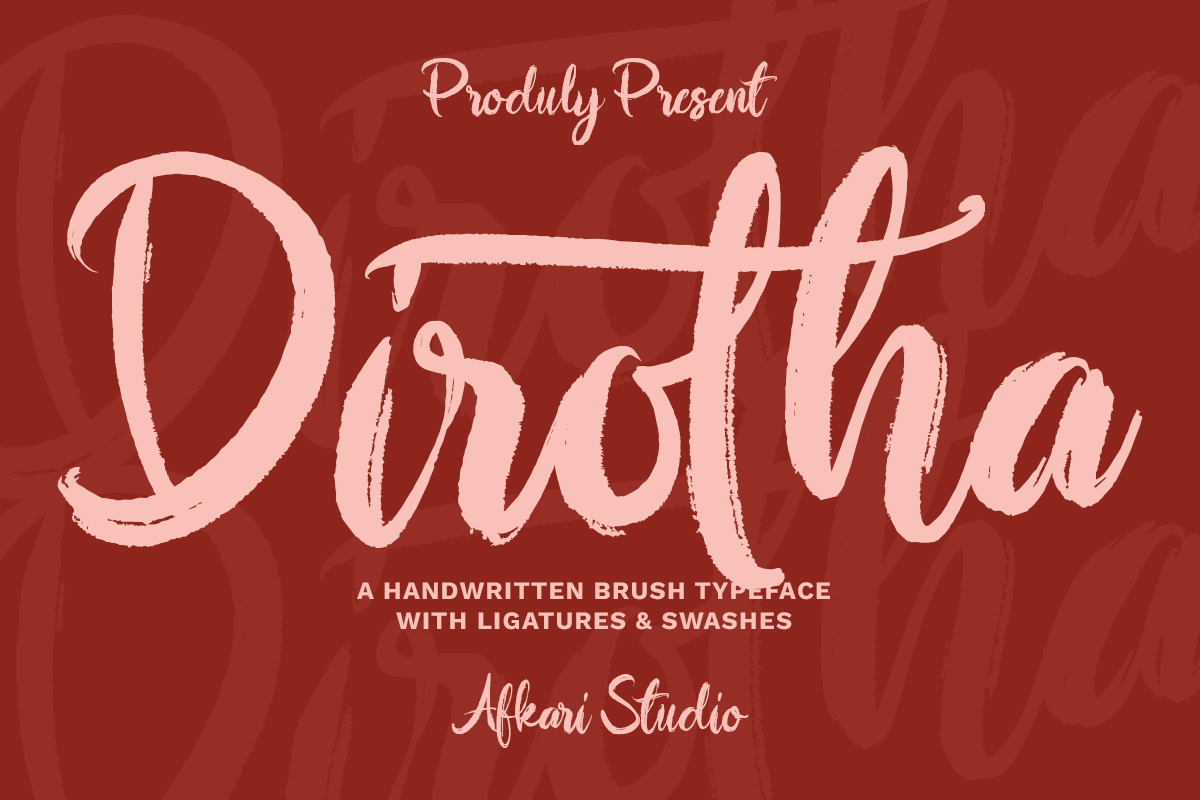
Dirotha - Handwritten Brush Font Font
Designed by Afkari Studio
About Dirotha - Handwritten Brush Font
Dirotha – Handwritten Brush Font brings raw expression and personality into your design work. Inspired by natural brush strokes, Dirotha feels bold yet organic—just like handwriting done with a real brush pen. Every letter flows with attitude, movement, and just the right amount of edge.